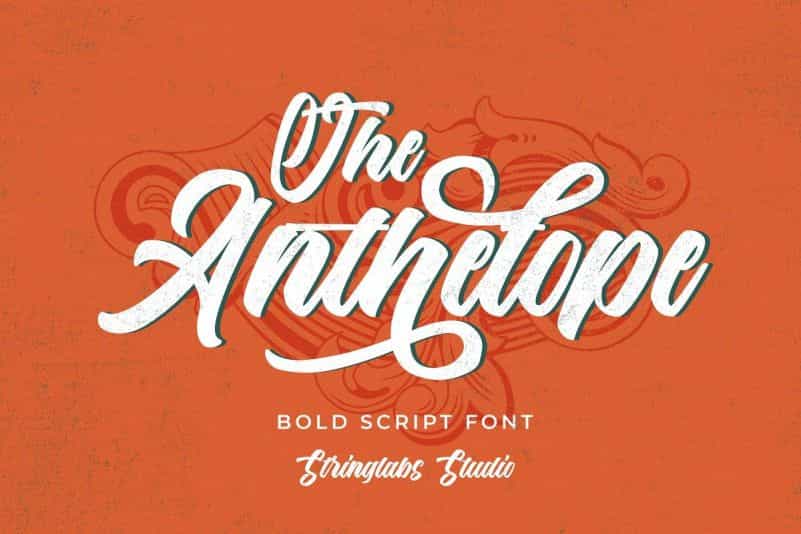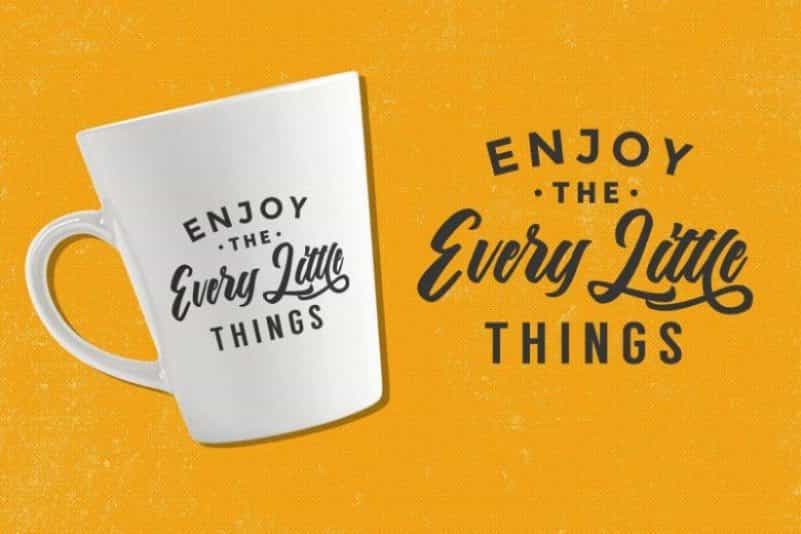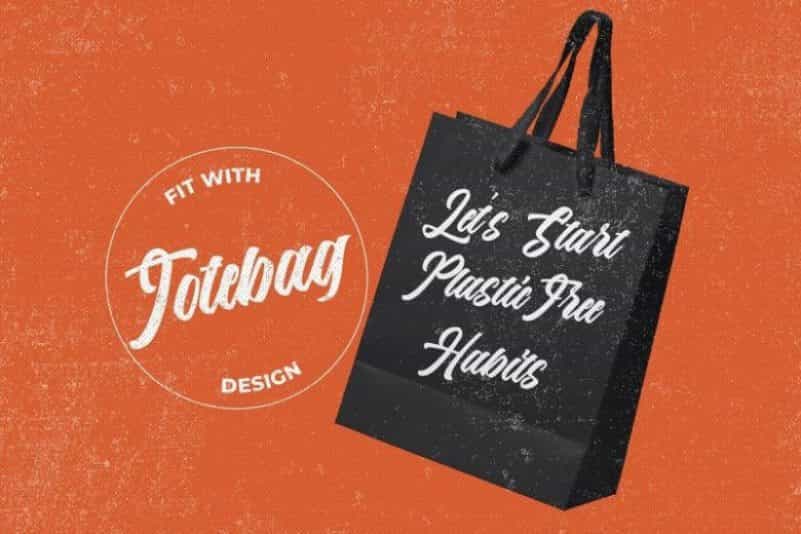
The Anthelope is a Retro bold script font with Groovy style, unique design taste and the combination of classic retro style of the 80s, trendy, vintage and sporty. The Anthelope is perfect for retro lovers, besides this font is also perfect if used for brands such as: barbershop, motorcycle club, fashion line, coffee shop, shoe brands, vapor shop and hipster are just a few of the things that you can find in this kind of neighborhood.